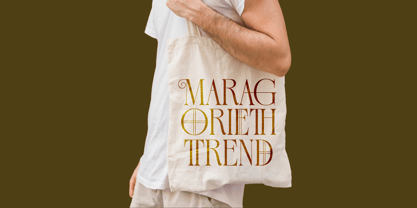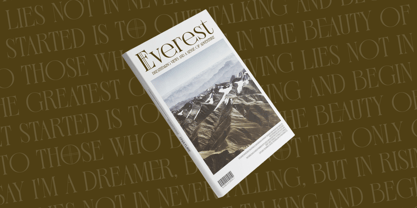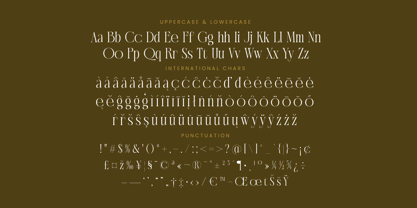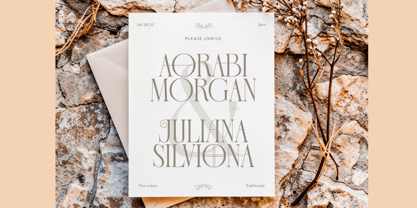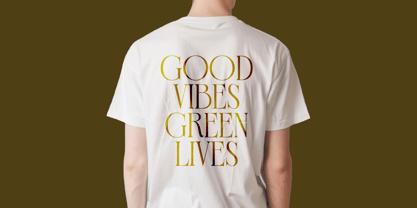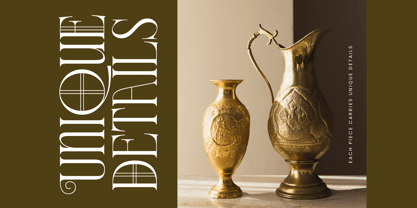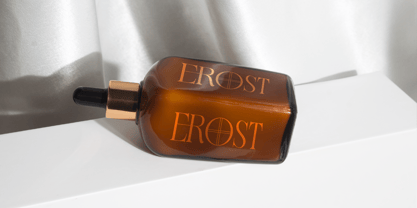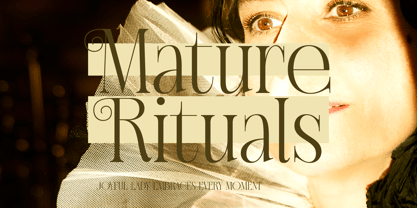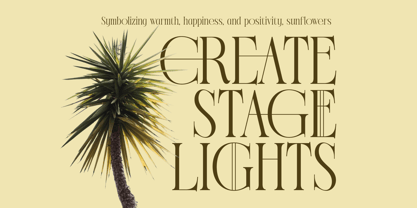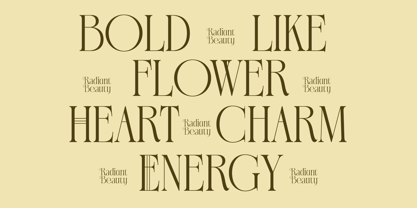
Exago Maona
The Exago Maona Font Family was designed by Heru Utama Putra and published by Timelesstype Studio. Exago Maona contains 2 styles and family package options. More about this family
Exago Maona - Vintage Serif Display , from Timelesstype , Suitable for any projects such as: logos, branding projects, homeware designs, product packaging, mugs, quotes, posters, shopping bags, t-shirts, book covers, name card, invitation cards, greeting cards, label, photography, watermark, special events, and all your other luxury and beautiful projects that need a Luxury Script taste.